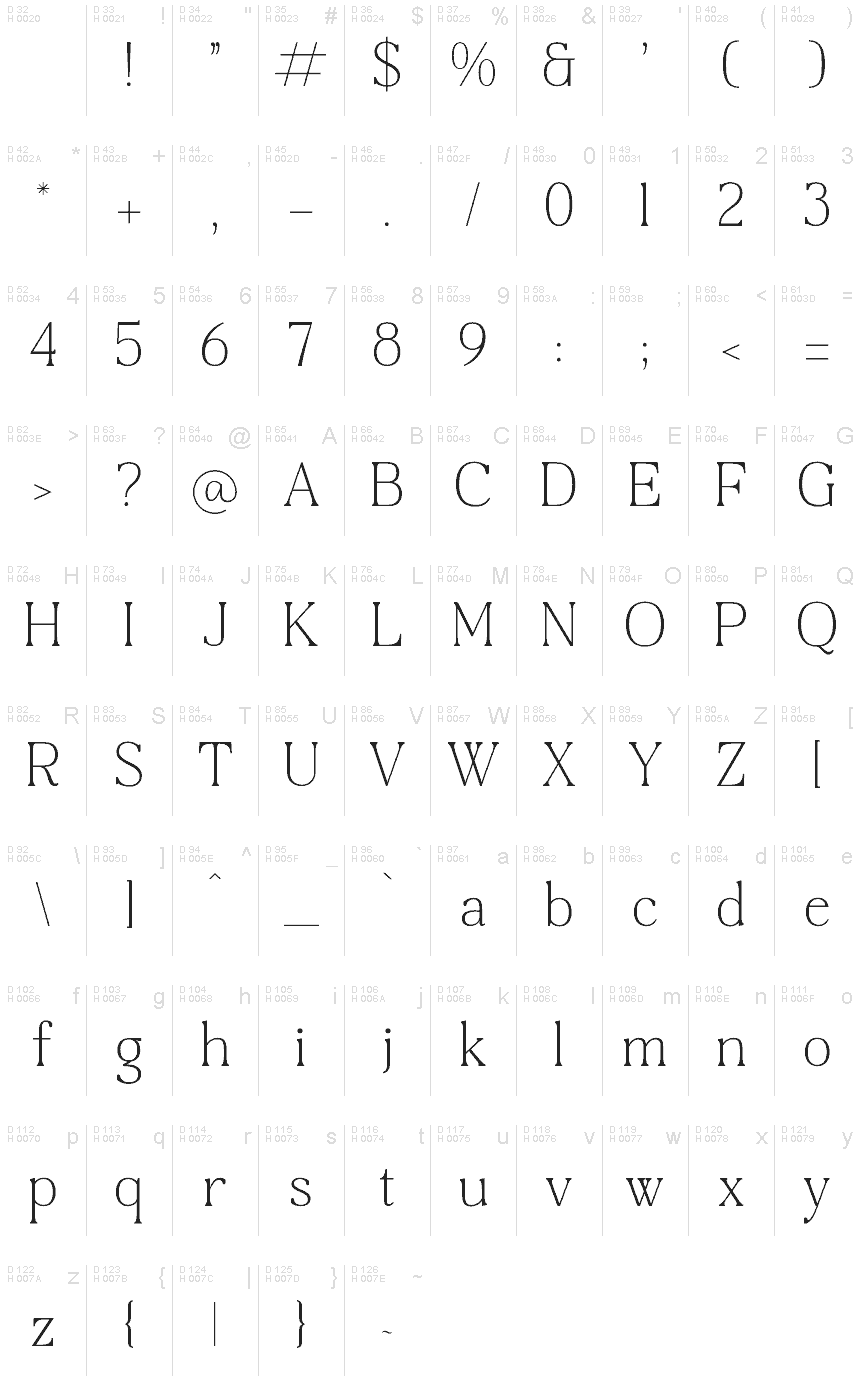
Craftern
Craftern font by Storytype Studio is a refined serif font characterized by its classic and elegant design. Its traditional yet sophisticated appearance makes it ideal for creating timeless and polished visuals. The light weight of Craftern enhances its overall appeal, adding subtlety and grace to any project. With exquisite serif detailing, this font embodies a sense of sophisticated refinement.